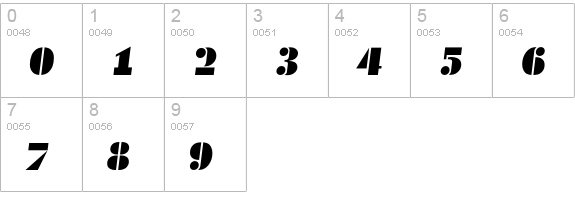
Dekoblack-Italic is a distinctive, italic variant in the Dekoblack typeface family \xE2\x80\x94 well suited to design and typography projects.
Dekoblack-Italic font exudes a sleek and modern aesthetic with its unique design elements and elegant curves. This versatile typeface is perfect for adding a touch of sophistication to any design project. Whether you're creating a logo, website, or print material, Dekoblack-Italic is sure to make a bold statement. The striking slanted strokes and distinctive letterforms of Dekoblack-Italic create a sense of dynamism and movement, making it a standout choice for headlines, titles, and branding materials. Its stylish and contemporary appearance will instantly elevate the visual appeal of your work. Best of all, Dekoblack-Italic is available for free download at FontsMarket.com. This means you can easily access this high-quality font and use it in your projects without any cost. Don't miss out on the opportunity to enhance your designs with the sleek and sophisticated Dekoblack-Italic font today!